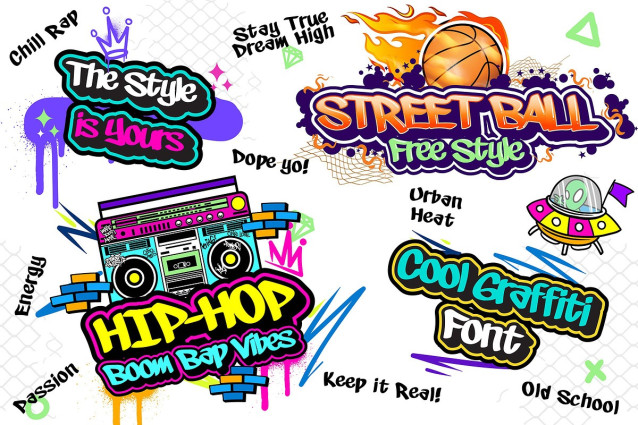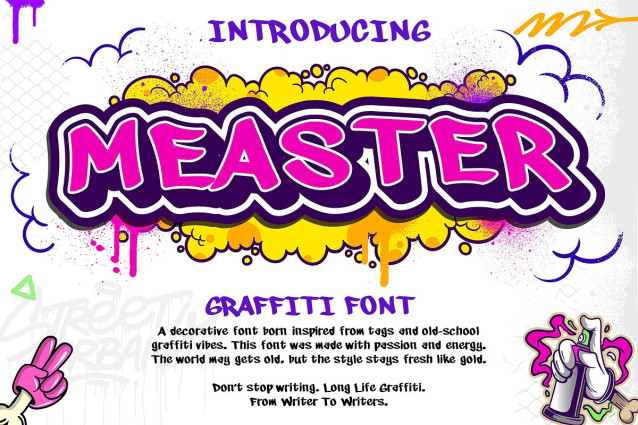
Measter Font
Measter Font is a modern graffiti-inspired typeface that blends raw tag energy with clean, readable structure. Influenced by old-school handstyles and street lettering, this font brings character and attitude while remaining versatile for contemporary design needs. This font was crafted by a graffiti writer known as Meas7. A writer from the streets of Indonesia.